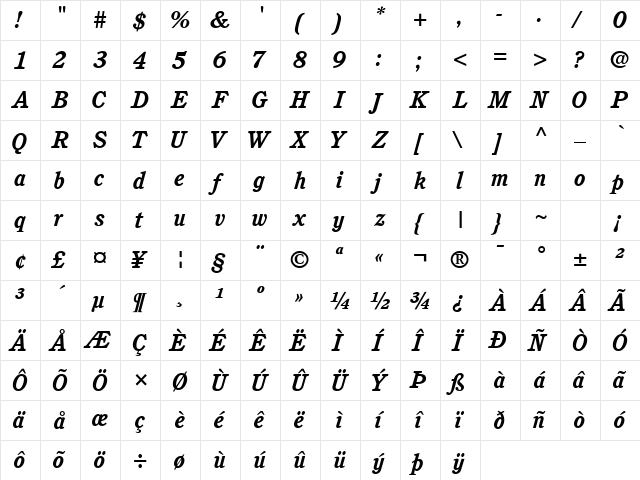
Perspective SSi Bold Italic
Design Context for Perspective SSi Typeface
Perspective SSi is a composed and adaptable typeface that performs quietly and consistently across a wide range of design contexts. The dynamic lean of this cut emphasises speed and emphasis in any layout. The heavy weight commands attention and anchors typographic hierarchies.
Pro Tip: Use Perspective SSi for emphasis, pull quotes, and subheadings where its slanted energy can add rhythm to the layout.